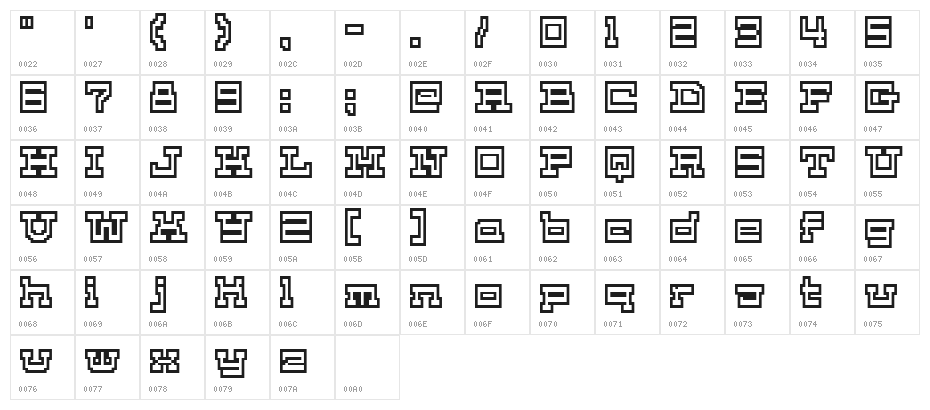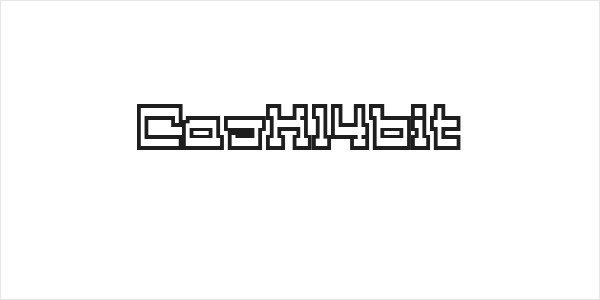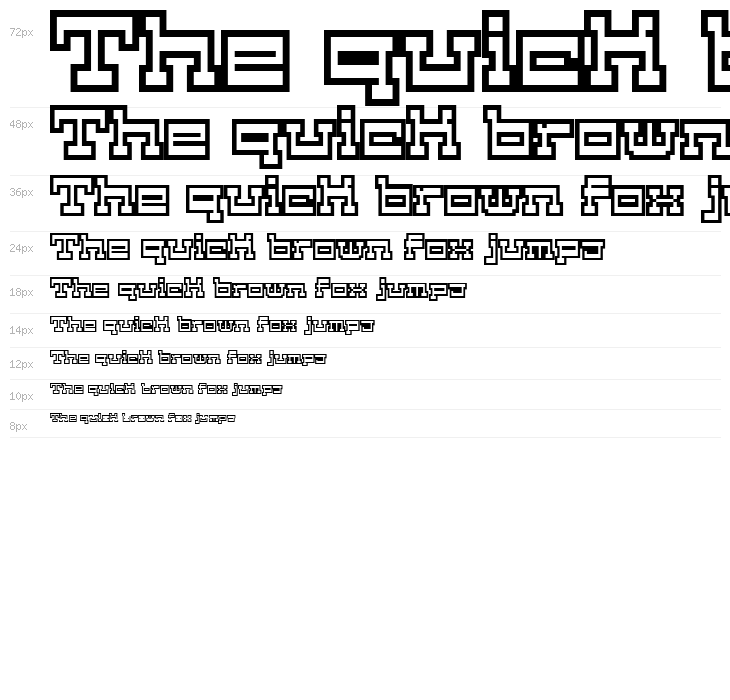
Cask14bit Font
Cask14bit Description
This font features a bold, geometric design with a pixelated, retro aesthetic reminiscent of early digital displays and video games. The characters are constructed with thick, blocky outlines that create a strong visual impact. Each letter and number is distinctly squared, emphasizing a digital, almost mechanical feel. The font maintains consistent line thickness throughout, contributing to its uniform appearance. The special characters are creatively integrated, maintaining the same pixelated style, which adds to the overall cohesive look. This font is ideal for projects that aim to evoke nostalgia for the early days of computing or to create a futuristic, tech-oriented vibe.
| Overall Style | Retro, Futuristic |
| Use Case | Headlines, Logos, Digital Displays |
| Proposed Projects | Ideal for video game graphics, tech-themed posters, retro digital displays, and branding for technology companies. |